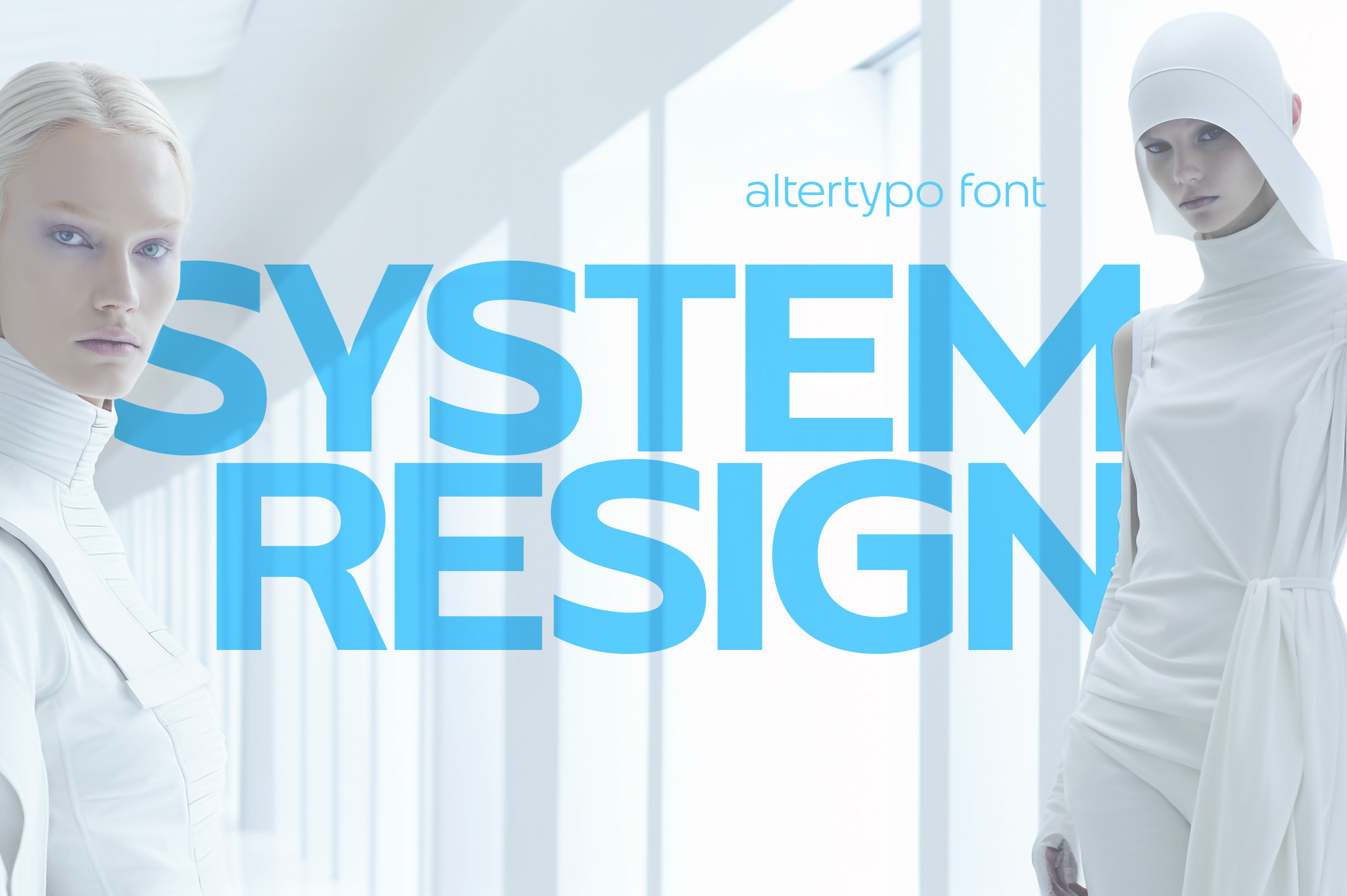
Altertypo elegant font family
Altertypo, a font family on a never-ending quest for the "perfect" sans-serif style. Inspired by the early 20th-century pioneers like Gill Sans and Johnston Sans, Altertypo seamlessly blends their classic elegance with contemporary flair. This unique typeface is your passport to creative freedom in graphic design, serving a multitude of purposes from editorial and corporate to web and interaction design.
This font allows you to craft compelling designs that transcend the ordinary, providing the versatility and innovation you seek. It invites you to explore a world of creative possibilities, where every character is thoughtfully placed to ensure a smooth, organic flow of words.
Step into the realm of Altertypo, and leave behind the constraints of conventional fonts. It's your gateway to exceptional design, where each letter harmonizes effortlessly to deliver a captivating visual experience. Say goodbye to the limitations of standard fonts and embrace the boundless potential that Altertypo offers.